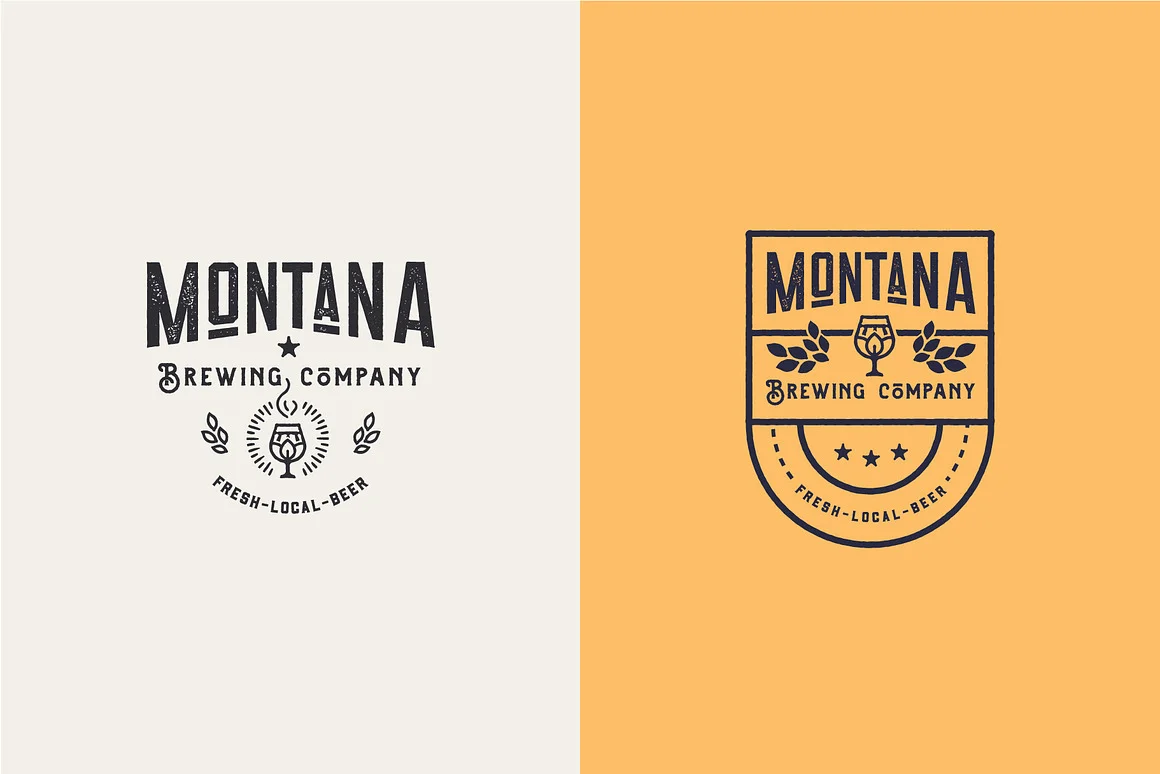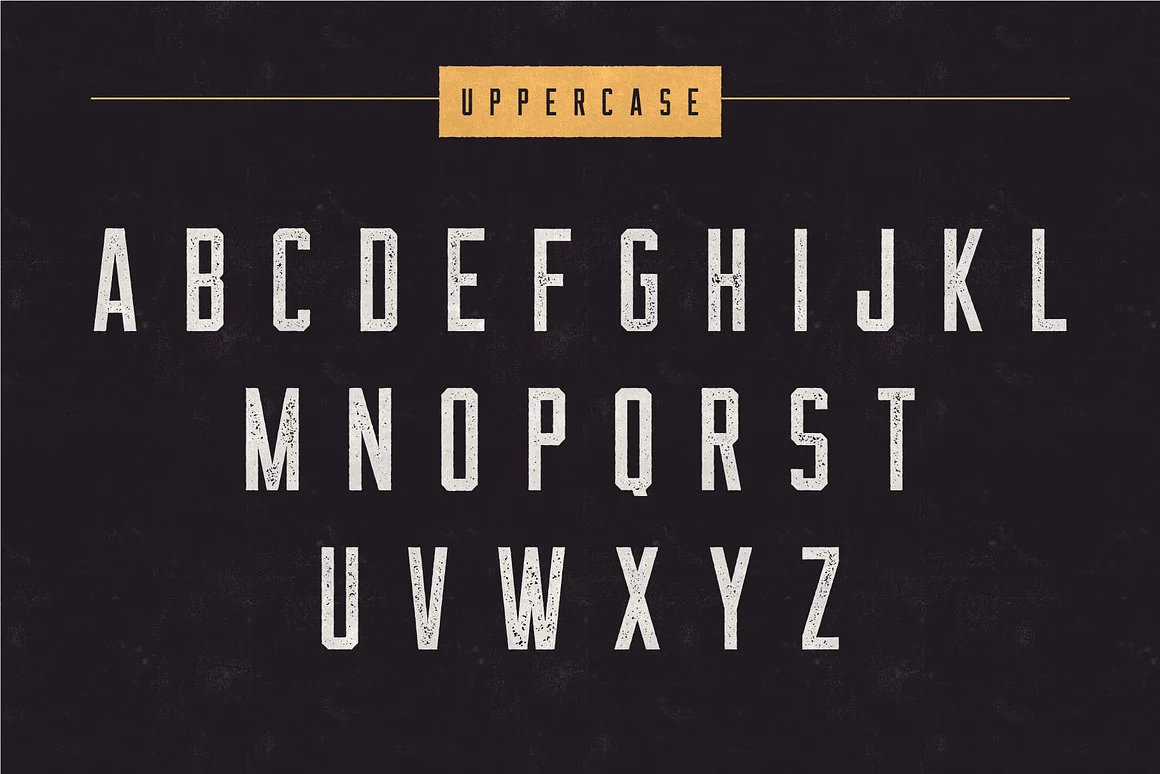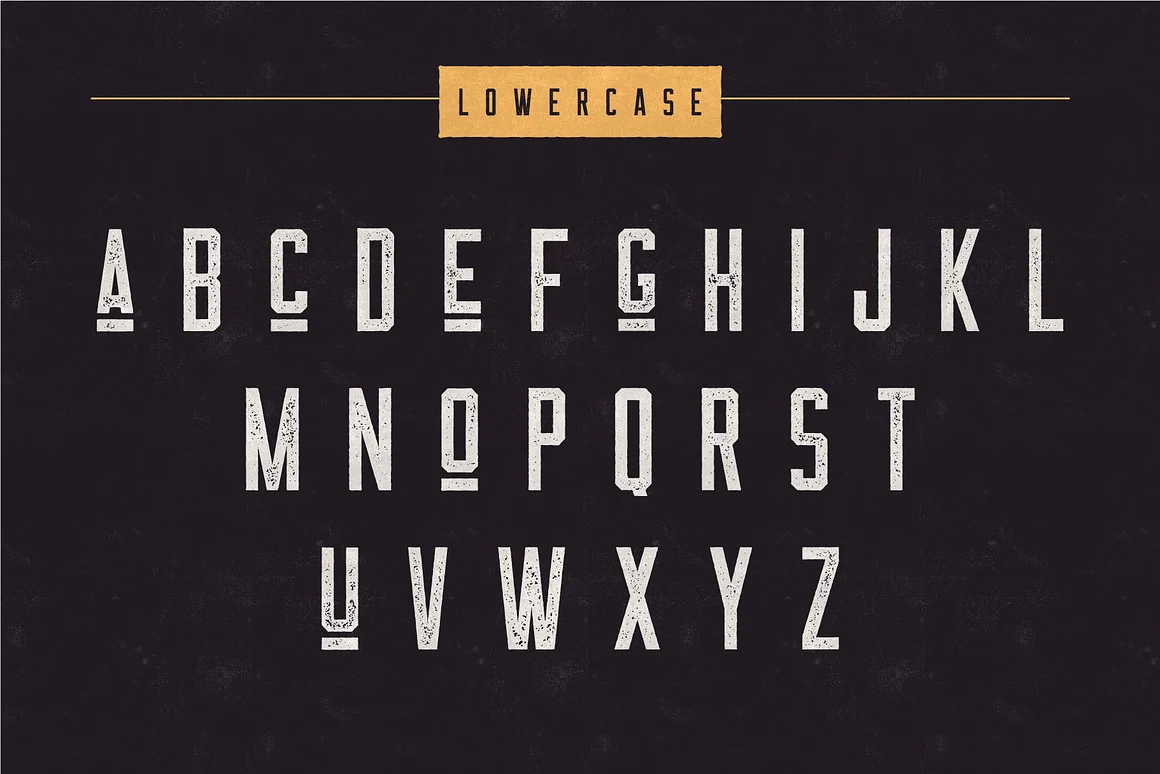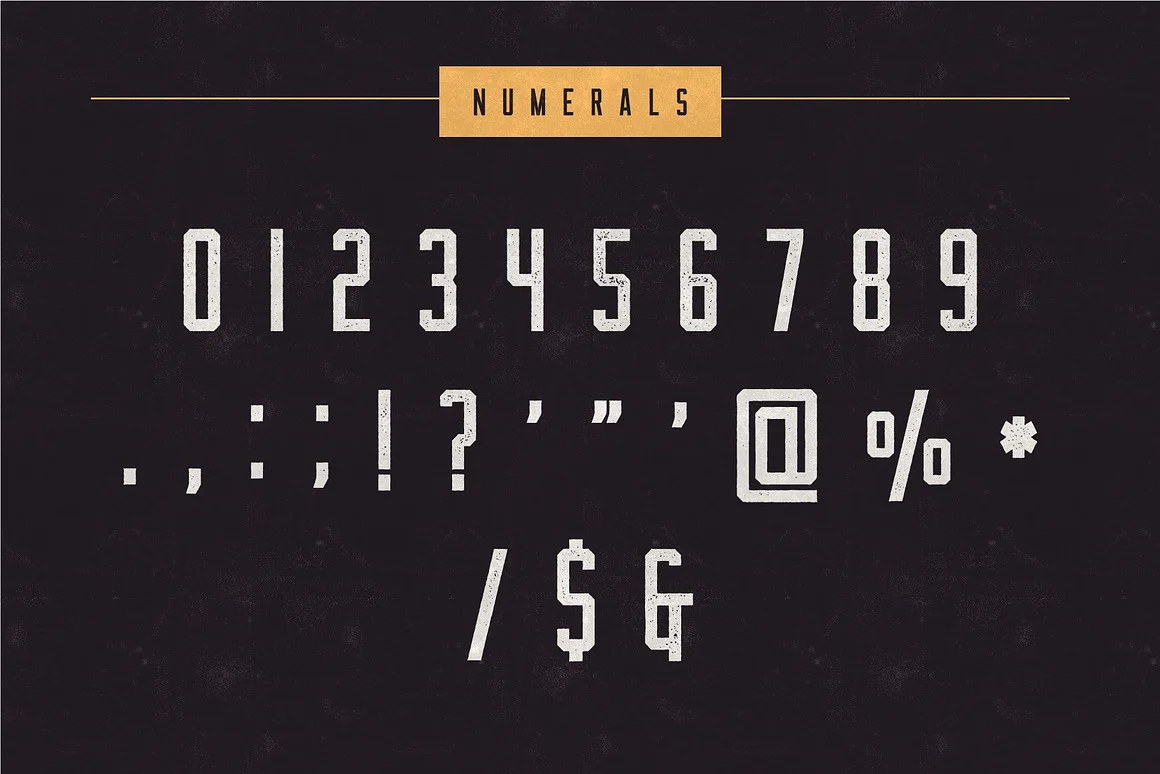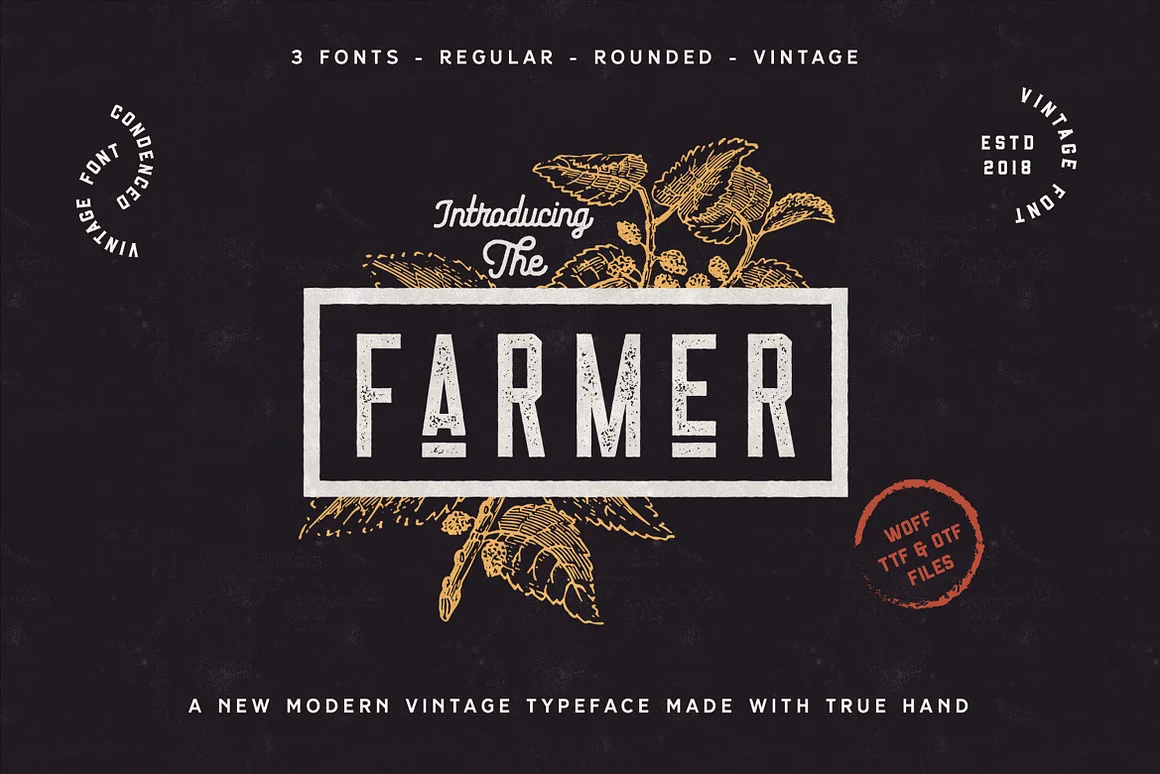
The Farmer Font - Condensed Typeface
There is a particular satisfaction in finding a typeface that delivers refined proportions and careful stroke modulation without compromise. The Farmer - Condensed Typeface consistently provides it. The typeface brings a versatile sensibility to a broad range of creative disciplines, with consistent type colour across continuous text that holds up whether the work is print-first or screen-first.
In practice, The Farmer - Condensed Typeface proves particularly effective for annual reports, brand identity systems, packaging design, poster creation, advertising campaigns. Designers reaching for it find that the type decisions feel resolved rather than laboured — a useful quality when client timelines are tight.
The range of applications extends to editorial layouts, logo design, web design, signage systems. That breadth is deliberate: the proportions and spacing were stress-tested across a wide range of mock briefs before the typeface was finalised.
The Farmer - Condensed Typeface sits comfortably alongside both classic and contemporary typefaces in multi-font hierarchies. It takes direction rather than competing for attention — a quality that experienced designers know is harder to find than it appears.
Motion designers building title sequences and lower thirds find The Farmer - Condensed Typeface a reliable choice for projects that demand both personality and restraint. The design avoids the self-conscious quirkiness that dates quickly, settling instead for considered distinctiveness that holds up over time.